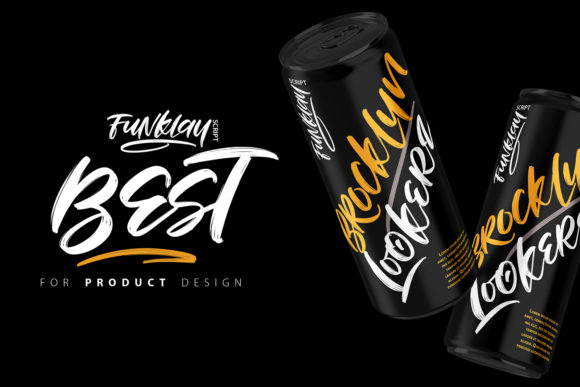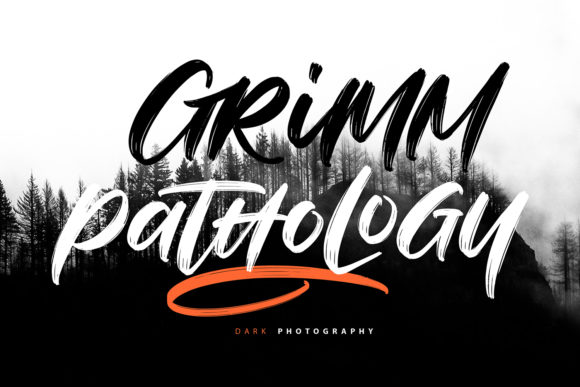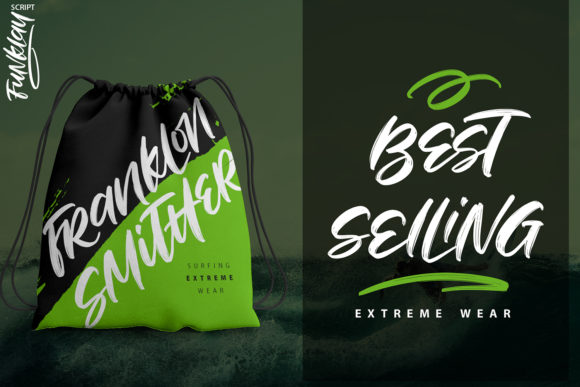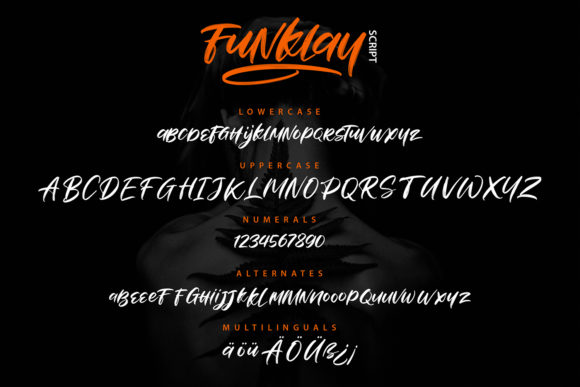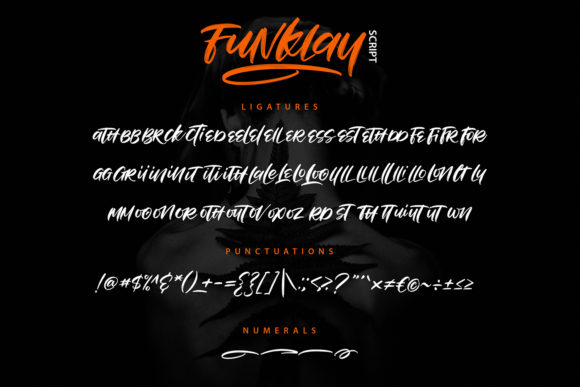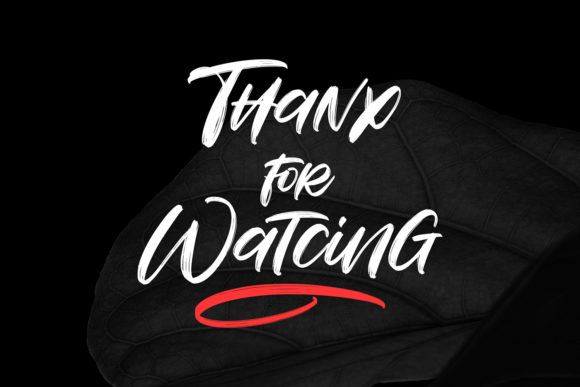
Funklay Font
About Funklay Font
“Funklay” is a casual and fashionable handwritten font that exudes charm and style. With its all-round appeal, this font is perfect for adding a touch of laid-back elegance to your designs.
The beauty of “Funklay” lies in its casual yet fashionable look. The letters have a relaxed and effortless flow, giving the font a modern and trendy vibe. Whether you’re designing for a hip and contemporary brand or creating casual and fun graphics, “Funklay” will bring a fresh and stylish feel to your designs.
One of the standout features of “Funklay” is its PUA encoding. This means that you can easily access all of the glyphs and swashes that come with the font. This gives you even more creative freedom to customize and personalize your designs, making them truly unique and eye-catching.
The versatility of “Funklay” makes it suitable for various design purposes. From social media graphics and branding materials to product packaging and apparel designs, this font can add a touch of casual sophistication to any project. Its all-round style allows it to adapt to different themes and concepts effortlessly.
When used in logos and branding, “Funklay” brings a sense of playfulness and modernity. The casual strokes and fashionable flair of the font make it ideal for brands targeting a younger and trendier audience. It can add a touch of personality and creativity to your brand identity, setting you apart from the competition.
In social media graphics and web design, “Funklay” shines with its charm and versatility. The font’s casual and fashionable look is well-suited for creating eye-catching headlines, quotes, and captions. It can capture the attention of your audience and make your content stand out in a crowded digital landscape.
Whether you’re designing posters, flyers, or other promotional materials, “Funklay” will add a touch of casual elegance to your designs. Its charming and laid-back style can create a welcoming and approachable atmosphere, making your message more relatable and engaging.
Overall, “Funklay” is a casual and fashionable handwritten font that adds a touch of charm and style to any design. Its all-round appeal, along with its PUA encoding, gives you the flexibility to customize and personalize your creations. Embrace the casual elegance of “Funklay” and let it bring a trendy and fashionable vibe to your designs.